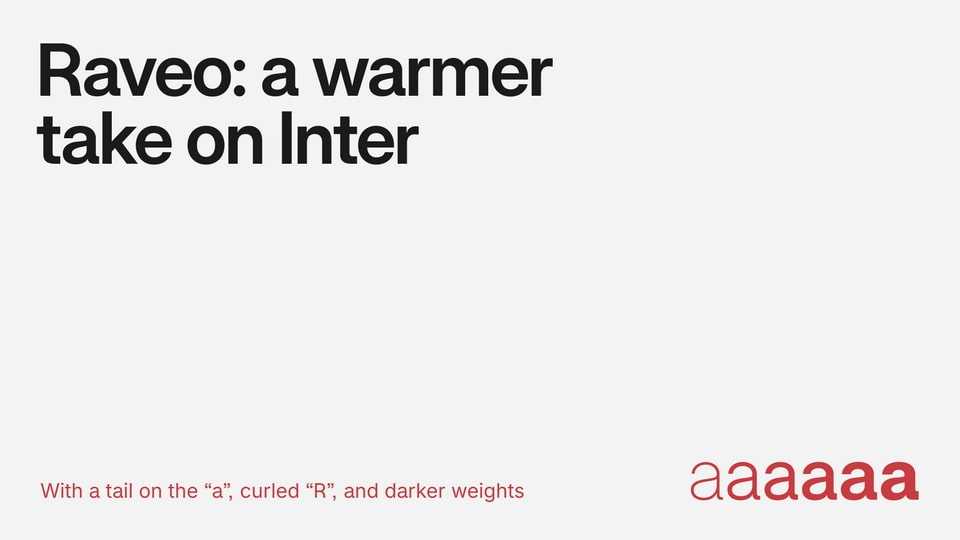
Download Raveo font, a warmer version of the open-source typeface Inter that shifts it slightly towards imperfection and human touch, while doubling down on the sturdiness.